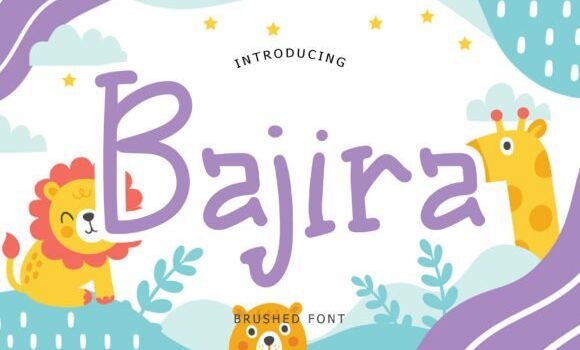
Bajira Font – Free Download Introduction to Bajira Font Bajira is an exciting and quirky display font that will make any kid-themed design stand out. 📸 Preview Gallery 5 images 📌 Product Name Bajira Font 👤 Author formatikastd 📂 Category